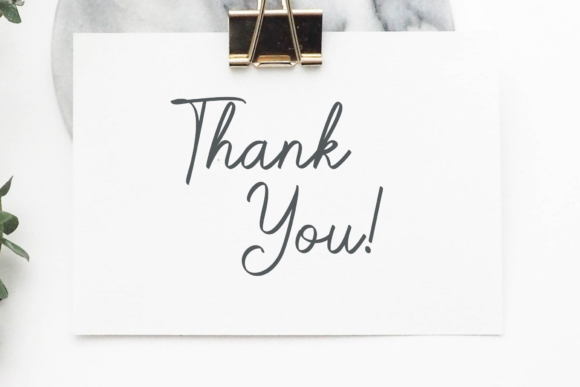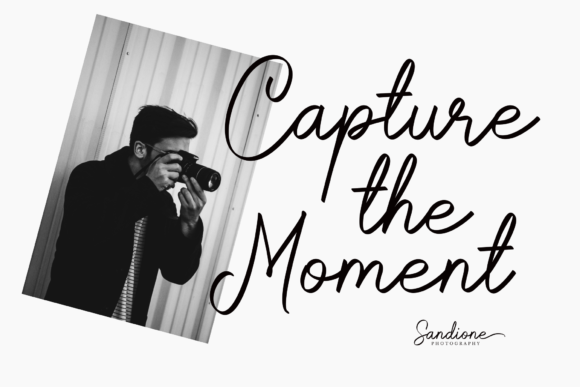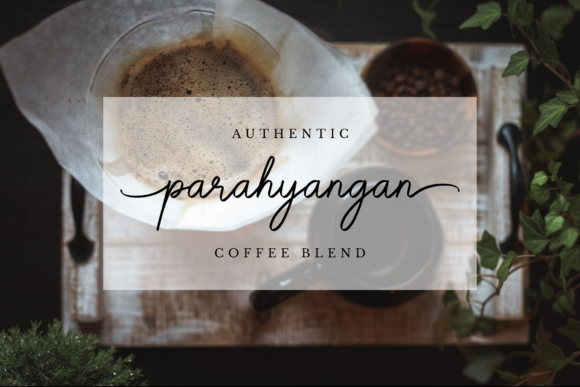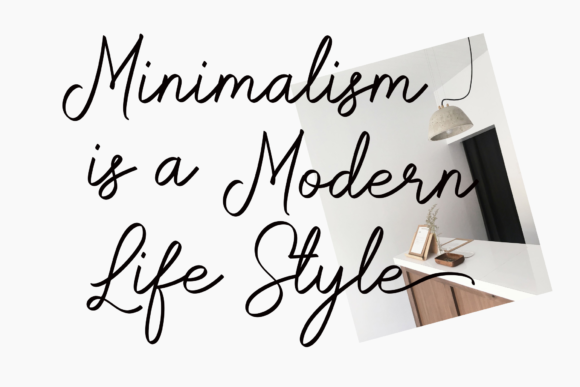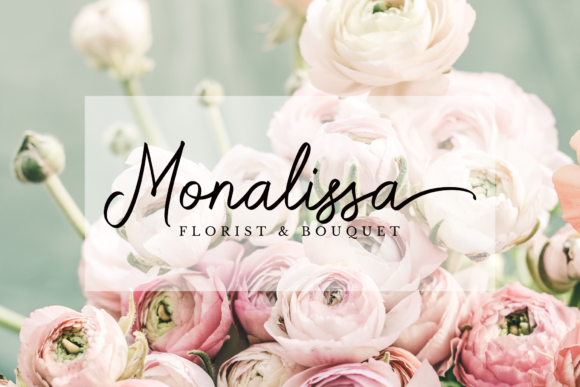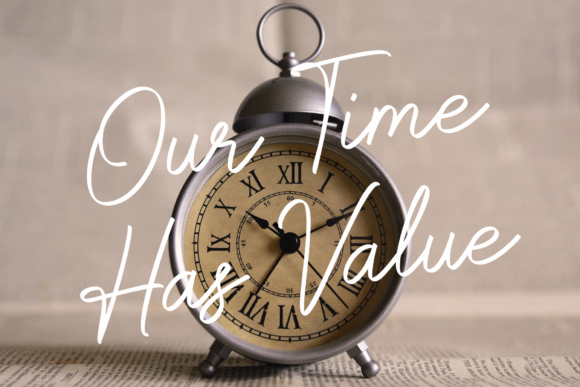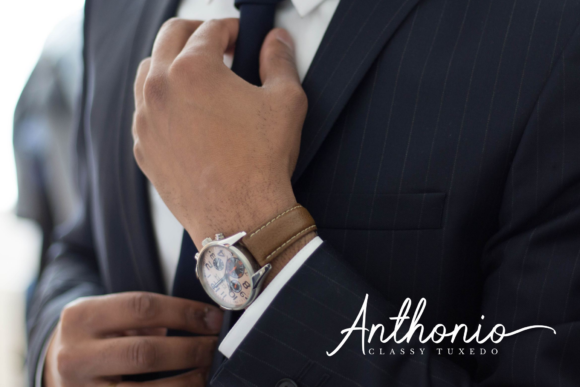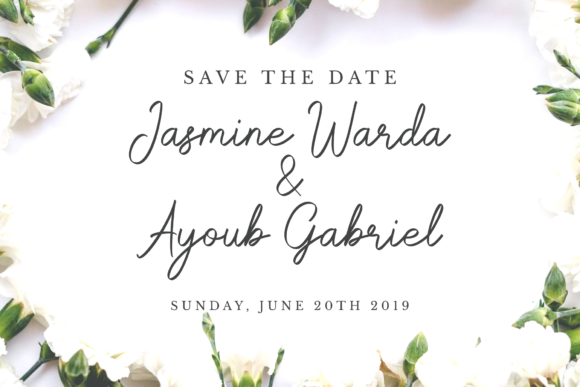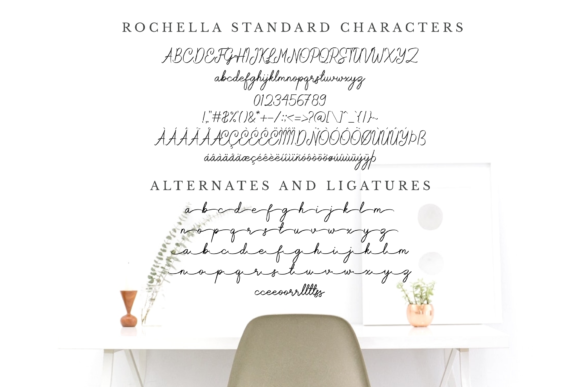
Rochella Font
About Rochella Font
The Rochella is an elegant script font. It includes beautiful alternates and ligatures that make your design looks elegant and natural. It’s natural handwritten style is perfect for logos, product packaging, wedding invitations, branding, headlines, signage, labels, signatures, book covers, posters, quotes and much more.